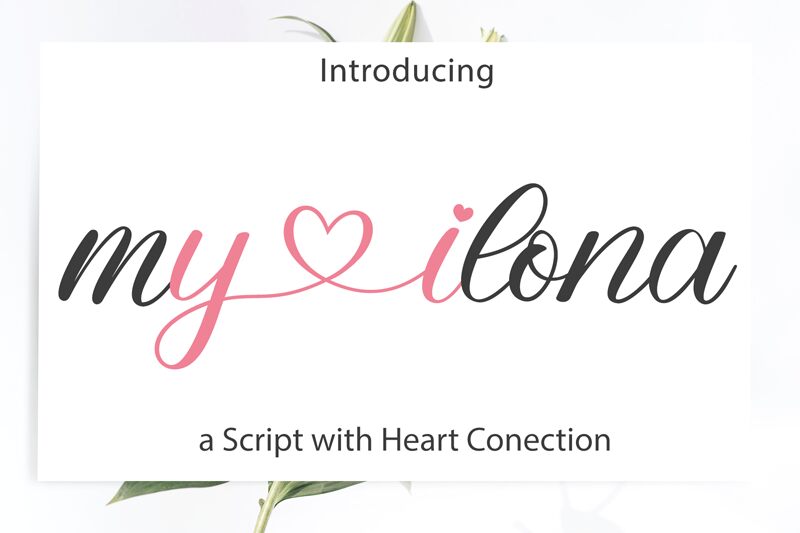
My Ilona
My Ilona font by Bearytype is a free calligraphy font whose sophisticated tone will be yours to enjoy. The font brings an elegant design with its handwritten aesthetic and graceful arrangements of the glyphs that decorate every project they’re part of. It has a fluid natural handwriting-inspired style where an overall polished look is achieved.
Designers can freely incorporate this tool into luxury brands, invitations, greeting cards, magazine covers, product packaging, website headers and more. Its versatility makes it a good choice for book covers and titles since lettering legibility won’t be a problem. Besides posters, consider it in letterheads or apparel designs as well.